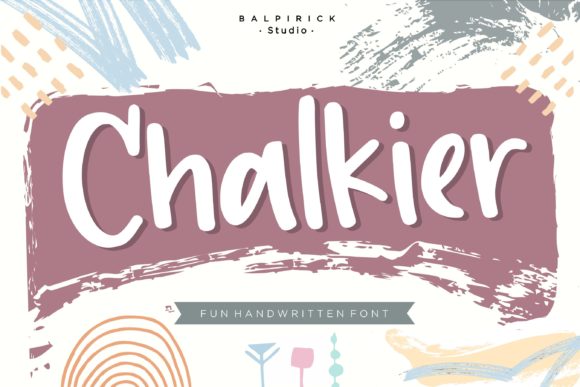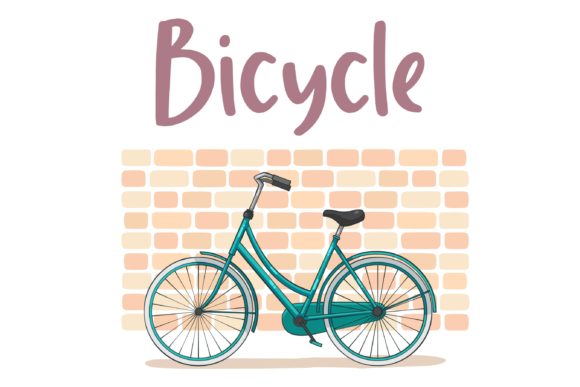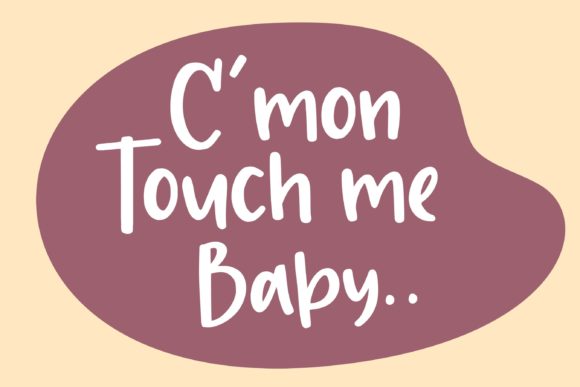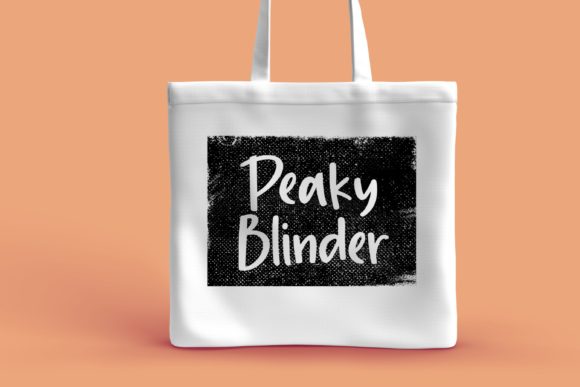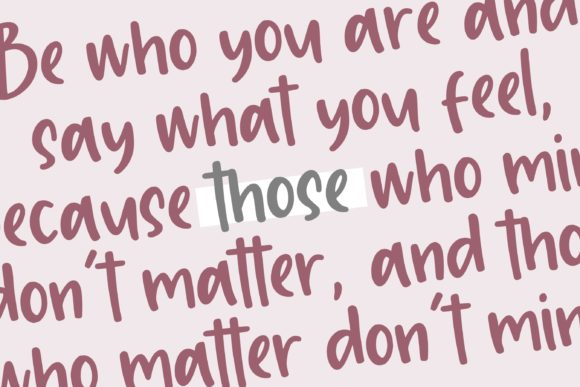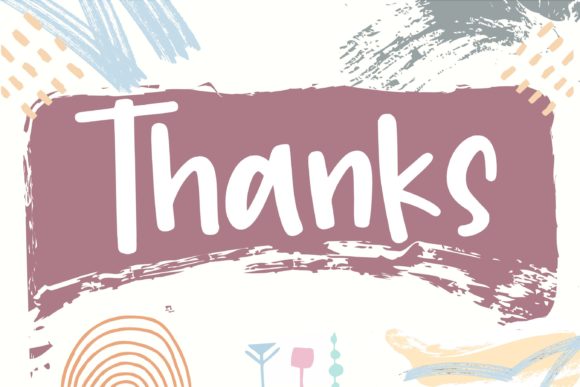
Chalkier Font
About Chalkier Font
Chalkier is a fun & quirky handwritten font. It’s the perfect choice for product packaging, branding project, magazines, social media posts, wedding invitations and much more!